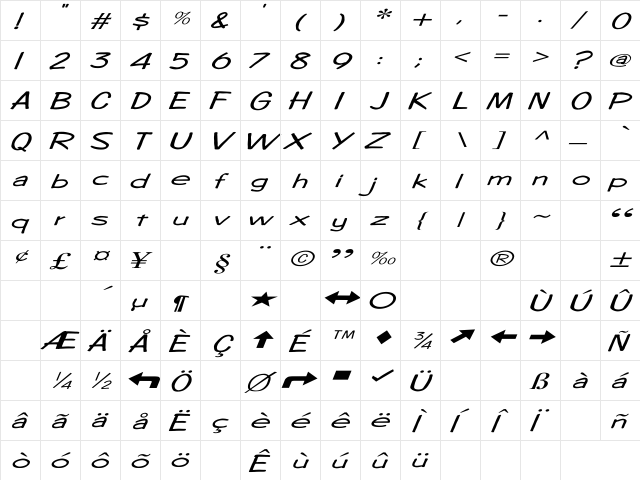
Diego1 Ex Italic Italic
Design Context for Diego1 Ex Italic Typeface
Diego1 Ex Italic takes a measured approach to typography — its balanced proportions and neutral character make it a reliable workhorse for both digital and print work. The slanted form adds forward momentum and visual energy.